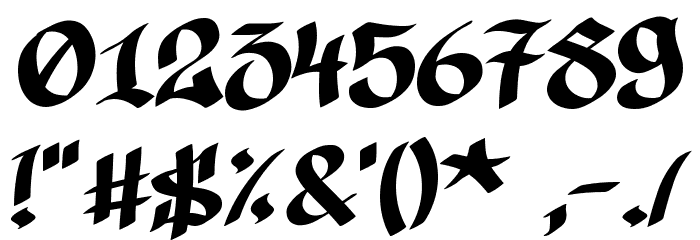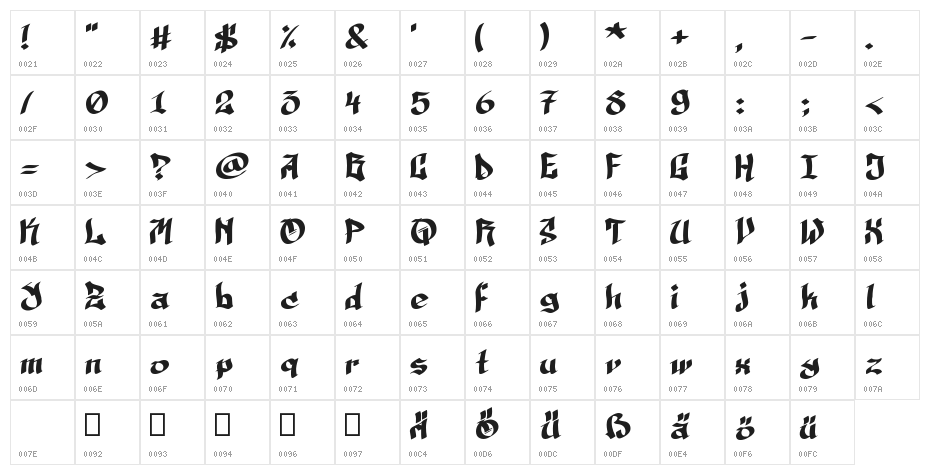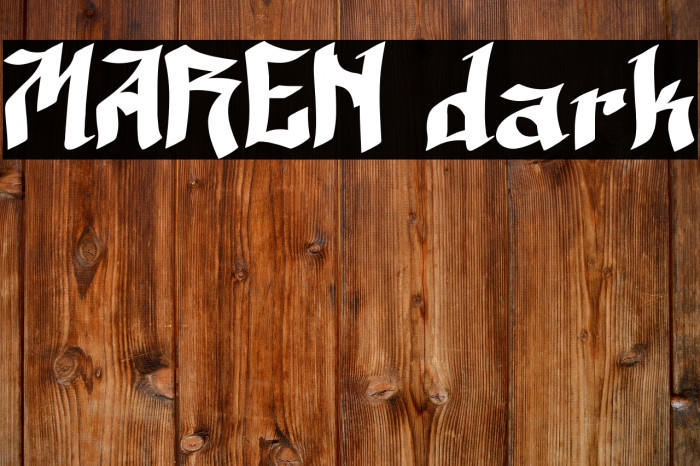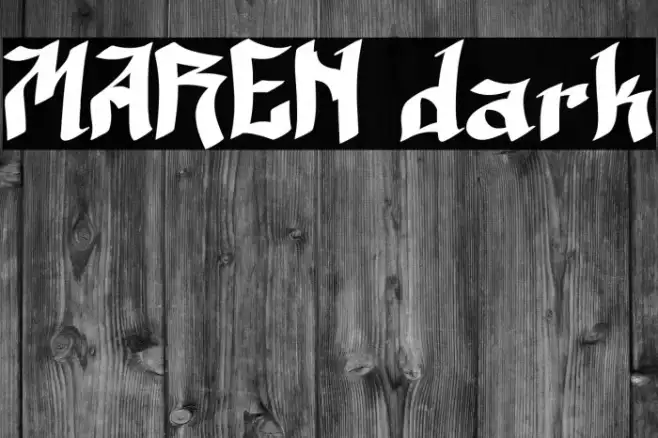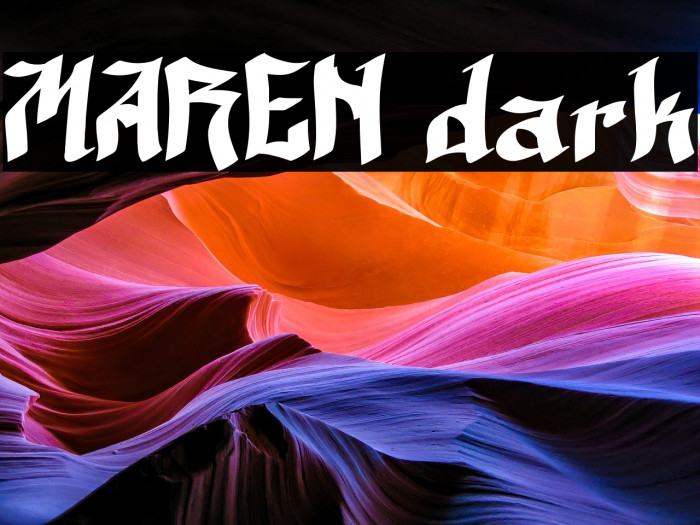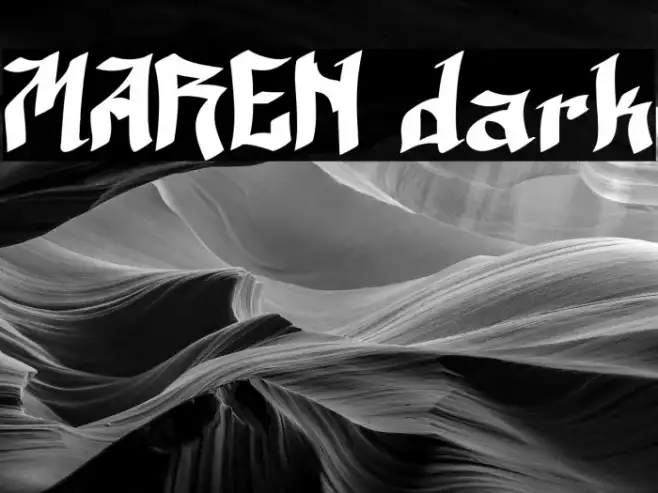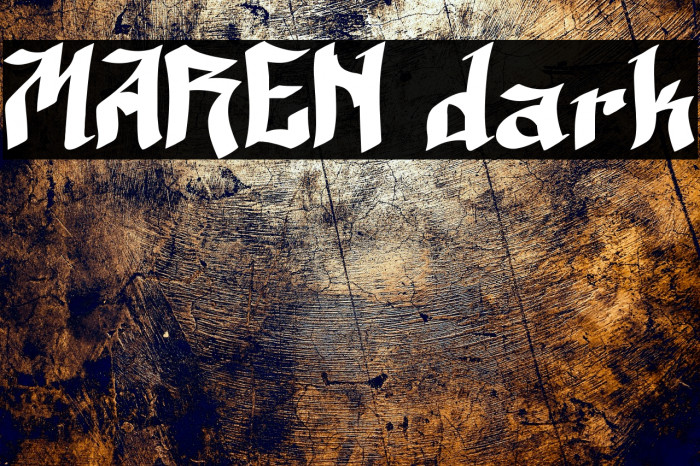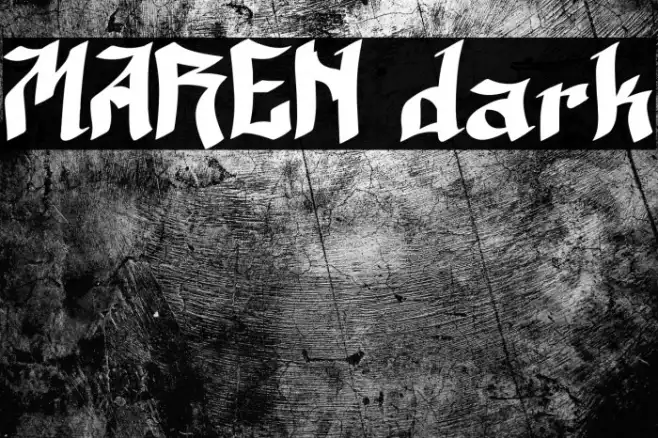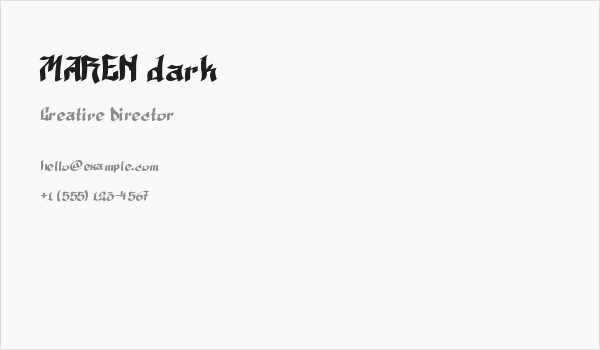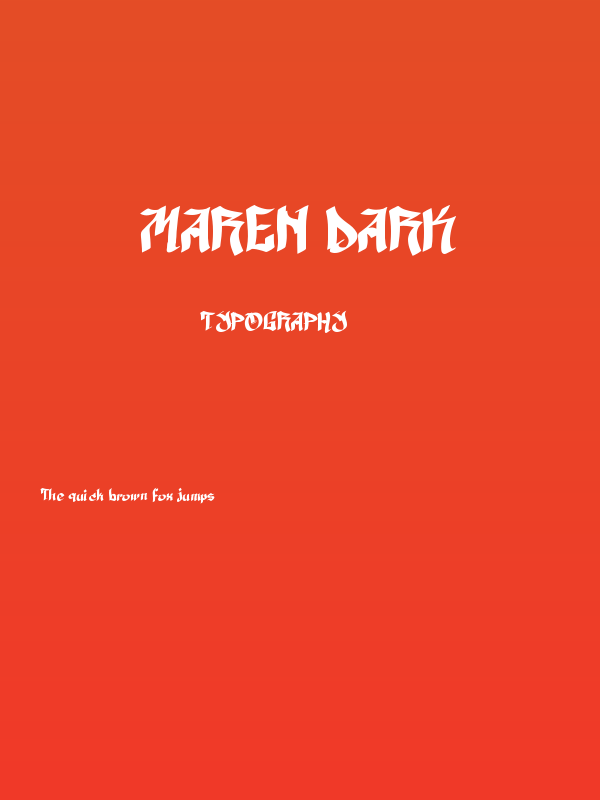
MAREN dark Font
MAREN dark Description
This font features a bold and dramatic style with sharp, angular edges and a distinct Gothic influence. The characters are designed with a high level of detail, showcasing a blend of traditional blackletter elements and modern flair. The uppercase letters are particularly striking, with strong vertical lines and intricate curves. The lowercase letters maintain a consistent style, offering a cohesive look across the alphabet. Numbers and special characters are crafted with the same attention to detail, making them stand out in any design. This font is ideal for projects that require a bold and impactful visual statement.